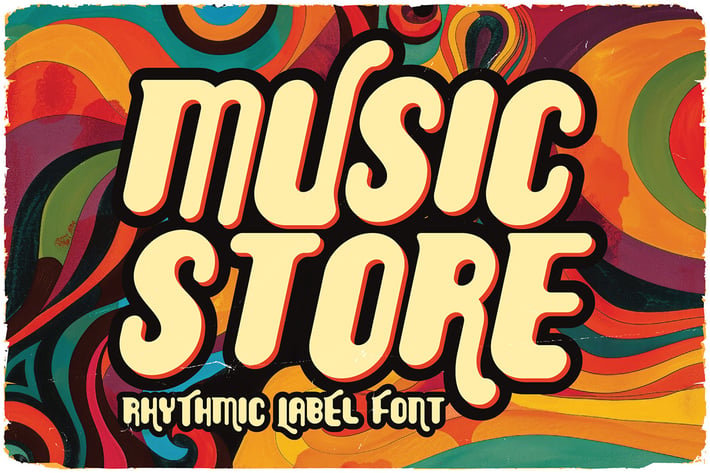
Music Store Retro Rounded Font
Unique, playful, rounded, retro, bold & retro sans serif font. Comes with multilingual support - great for your new logo or branding project.
- Great for retro or groovy style branding projects